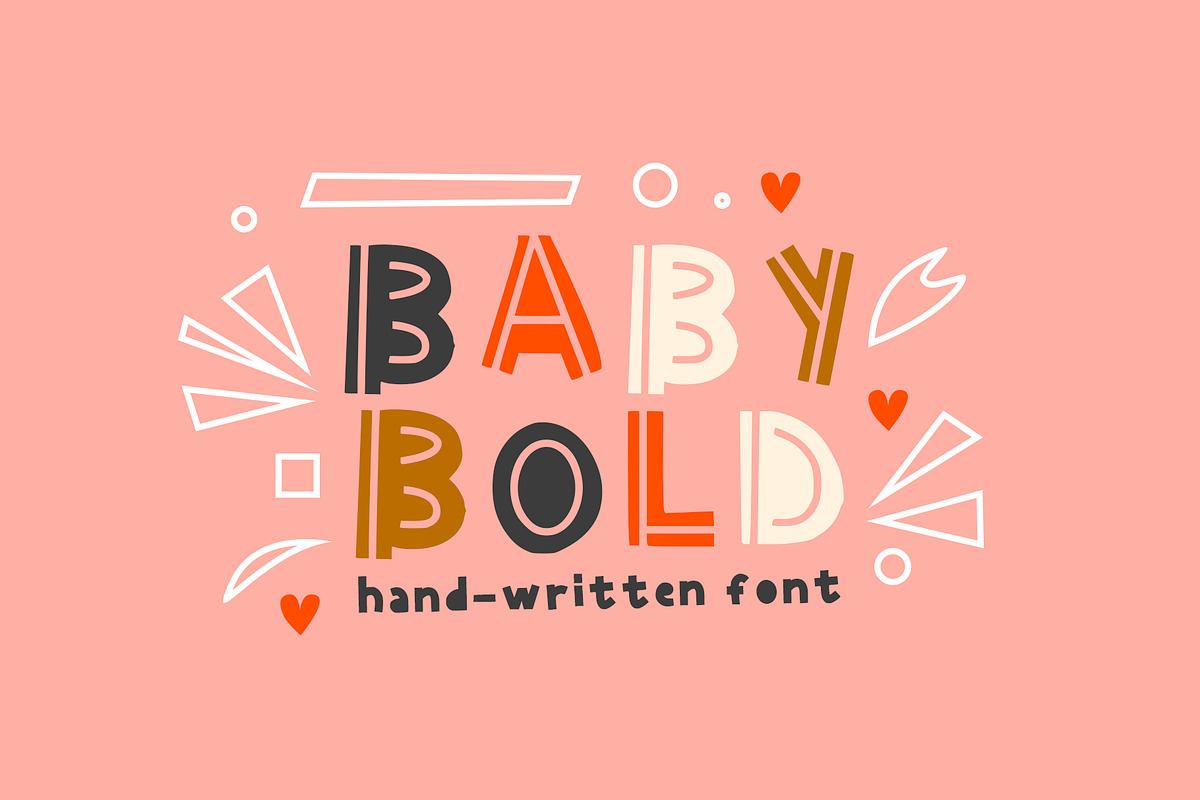
BabyBold Font for KID'S Free Download
The BabyBold Font for KID'S Free Download is a fun, chunky, and cheerful typeface crafted especially for children’s content. With its bold shapes and playful style, this font is ideal for kids’ books, toys, educational materials, birthday invitations, games, and classroom decor. It’s designed to grab attention while keeping things light-hearted and easy to read.
BabyBold features rounded edges, friendly letterforms, and a joyful personality that resonates perfectly with young audiences. It includes uppercase and lowercase letters, numbers, punctuation, and multilingual support—making it both fun and functional for a wide range of kid-focused designs.